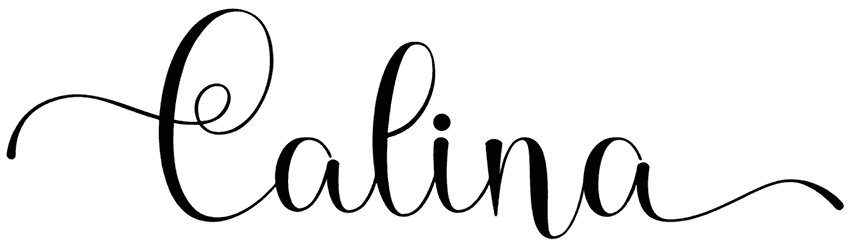
Calina Font
So lucky to have this opportunity to add fresh color and taste to your letters, documents, drawings, cards, and other spots that need a sweet, warm touch. Calina and other exclusive script fonts are embedded in RB, which you’re only a tap from owning!